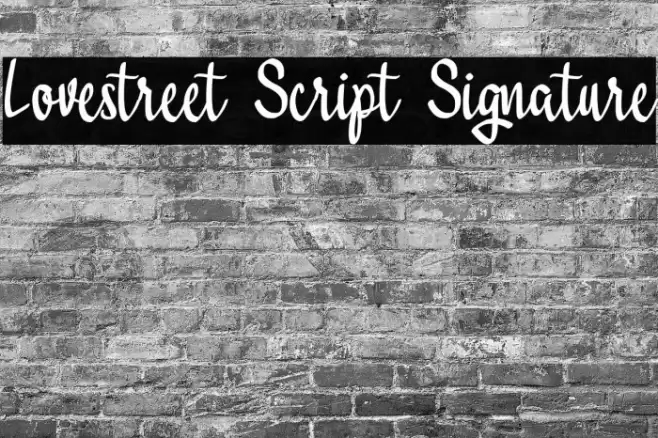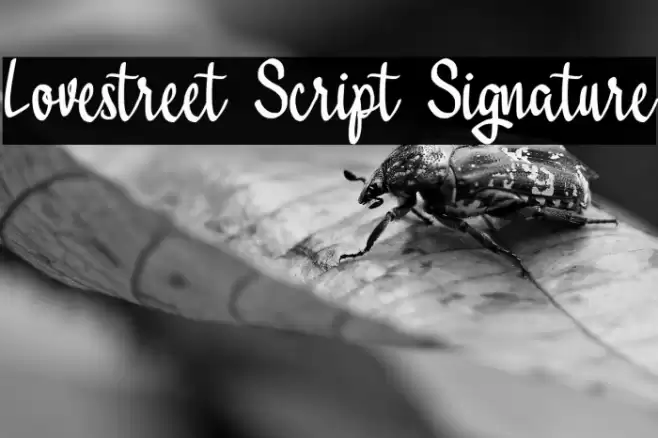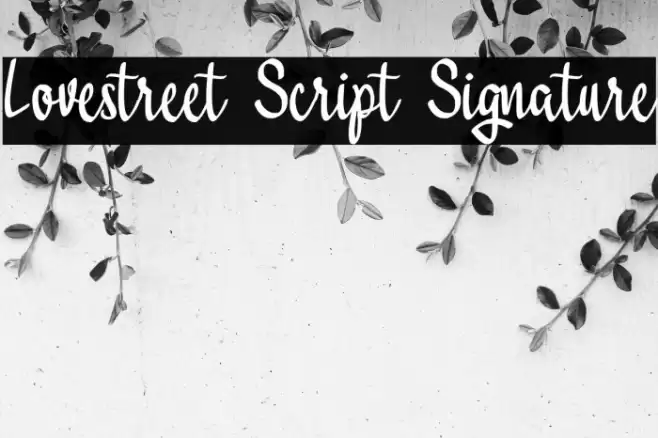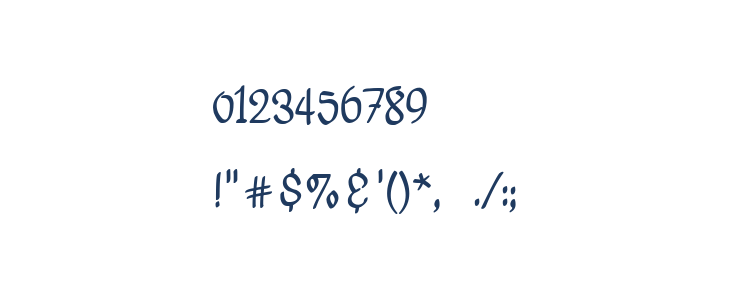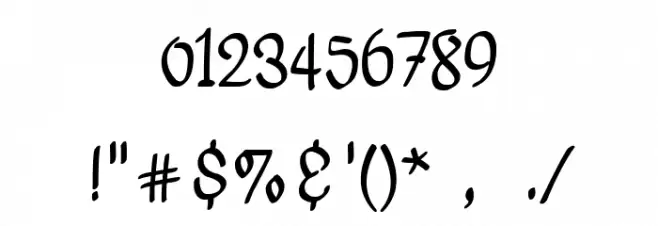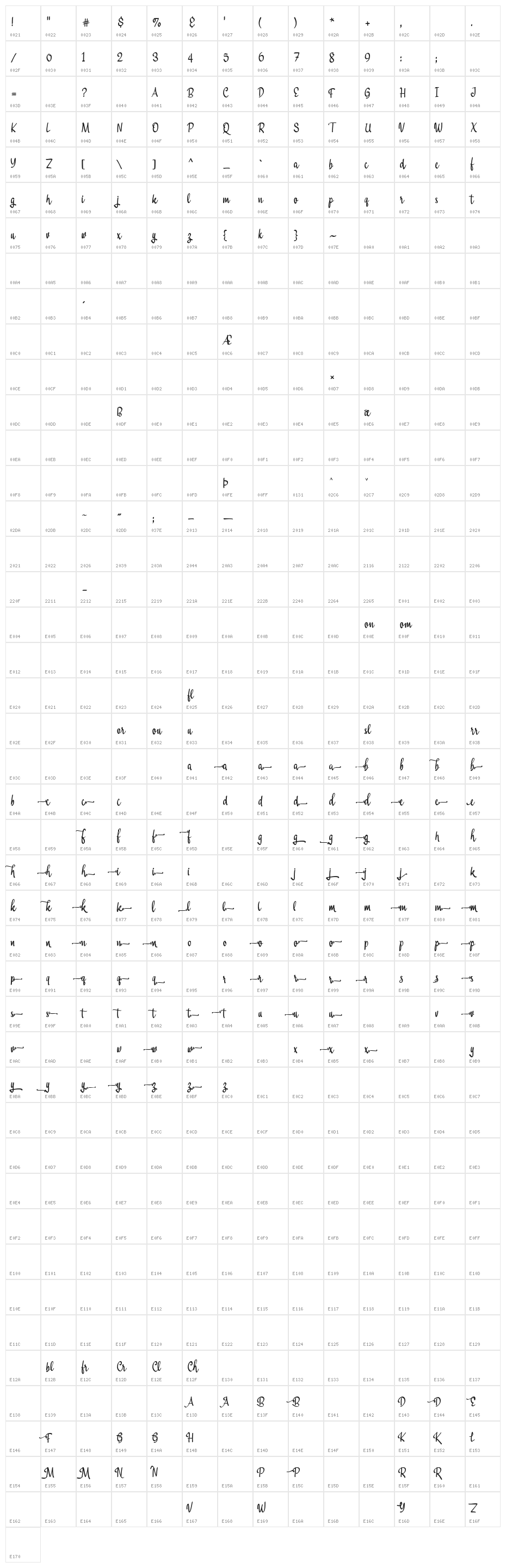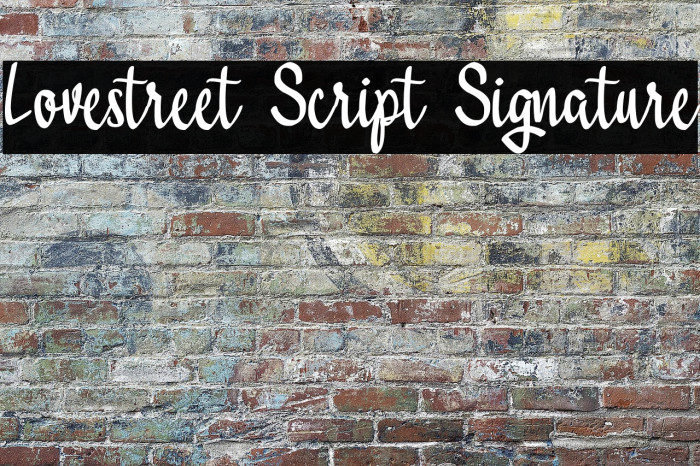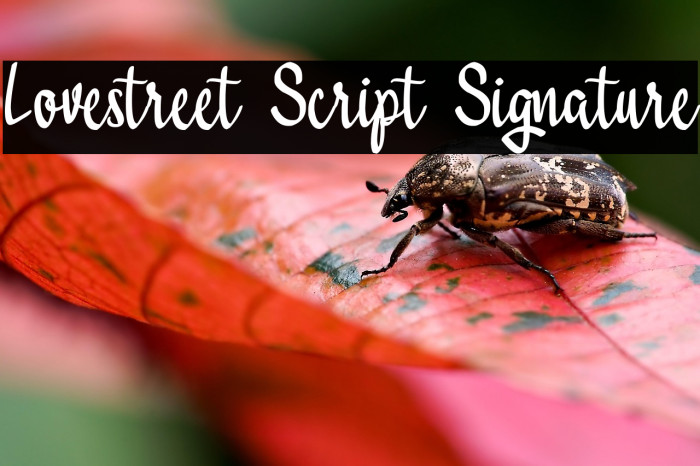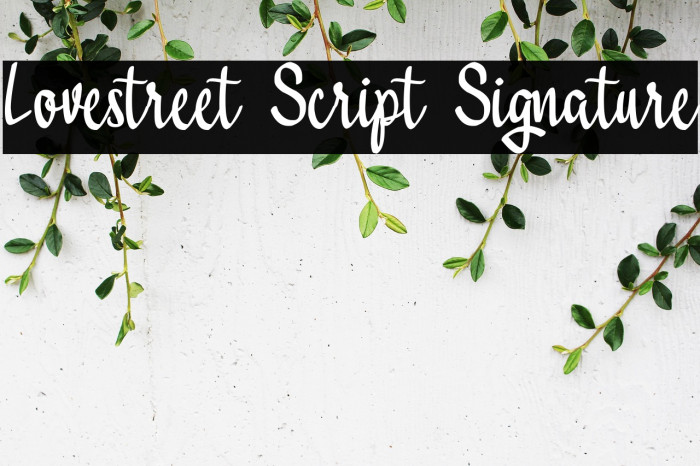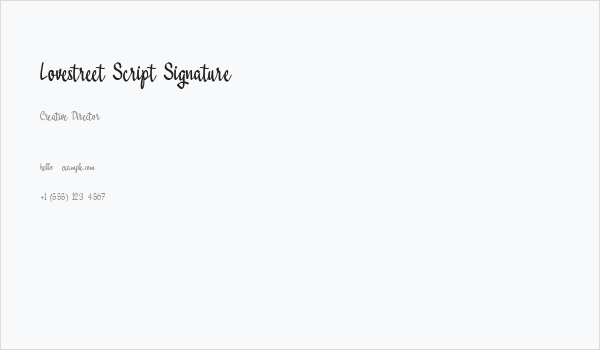
Lovestreet Script Signature Font
Lovestreet Script Signature Description
This font exudes a charming and elegant script style, characterized by its fluid and connected letterforms. The uppercase letters are bold and slightly slanted, giving a sense of movement and grace. The lowercase letters maintain a consistent flow, with some letters featuring distinctive loops and swashes that add a touch of sophistication. The numerals are clear and maintain the script style, ensuring readability. Special characters are well-integrated, matching the overall aesthetic. This font is perfect for projects that require a personal and artistic touch.
A charming and elegant script font with fluid, connected letterforms from Uncategorized fonts.
- Proposed Projects: Ideal for wedding invitations, greeting cards, branding, and logo design.
- Overall Style: Elegant
- Use Case: Logos, Invitations, Branding